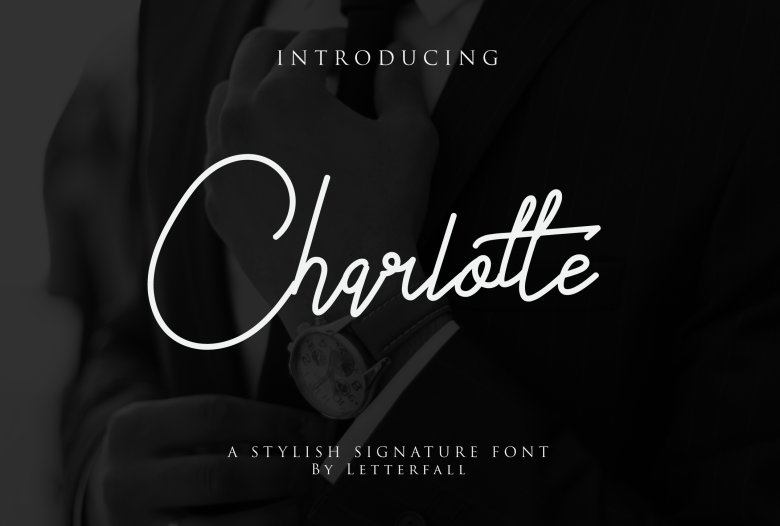
Charlotte Signature Font
Introducing Charlotte Script Font. Charlotte designed and shared by Ahmad Rifal Fahrudin. Charlotte is modern script that perfect for signature logo, photography logo, branding logo or anything that you’ll need,. It is so beautiful and classy, simple but strong. This is free for commercial use so feel free to use it to prosper!